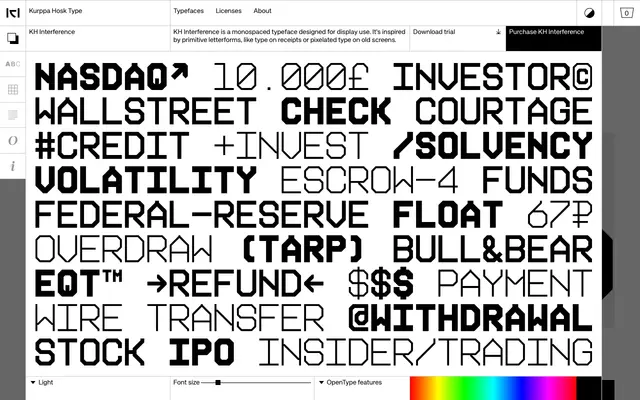
KH Interference
Kurppa Hosk Type · Thomas Kurppa, Jakob Ekelund, Wille Larsson · 2021
KH Interference specimen from Kurppa Hosk Type
An uppercase-only display monospaced typeface built on a 45-degree grid, referencing receipt printing and low-resolution screen type.
Designed by Thomas Kurppa, Jakob Ekelund and Wille Larsson between 2021 and 2022, it draws on analogue sources like ticket stubs and receipts alongside pixelated digital lettering from early low-res screens. Outer corners are rounded while inner corners remain sharp, and alternate diacritic forms keep accented characters within the cap height to allow the super-tight line-spacing the design was built for. Three weights run from Light to Bold, with an extensive set of symbols, arrows, currency signs and mathematical characters.
A fixed-width, uppercase-only typeface designed explicitly for display use, drawing from receipt printing and low-resolution digital screens. Its monospaced structure and grid-based geometry place it firmly in the display mono subcategory.